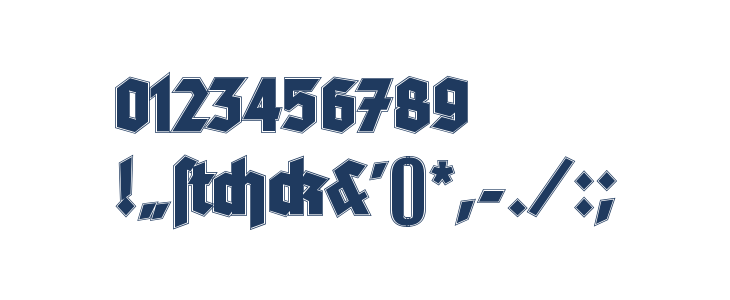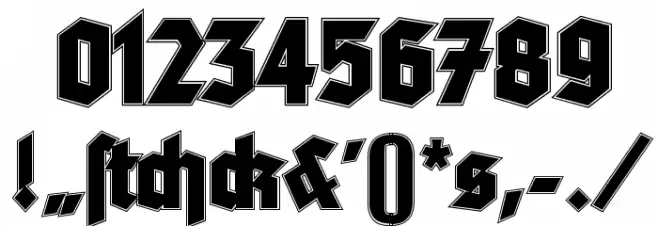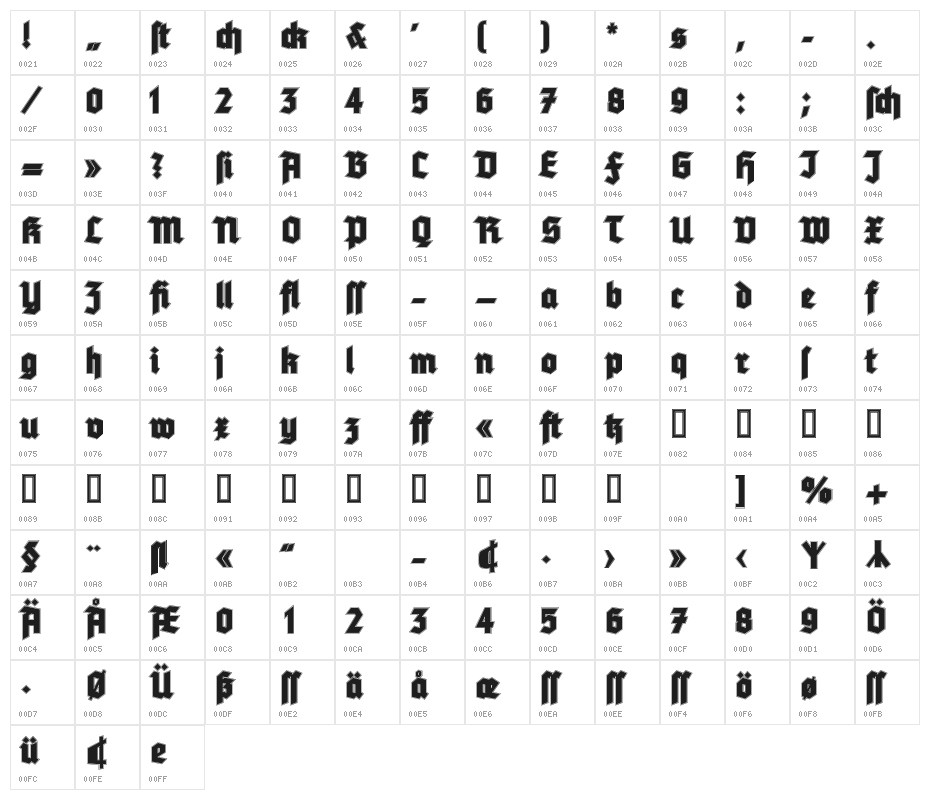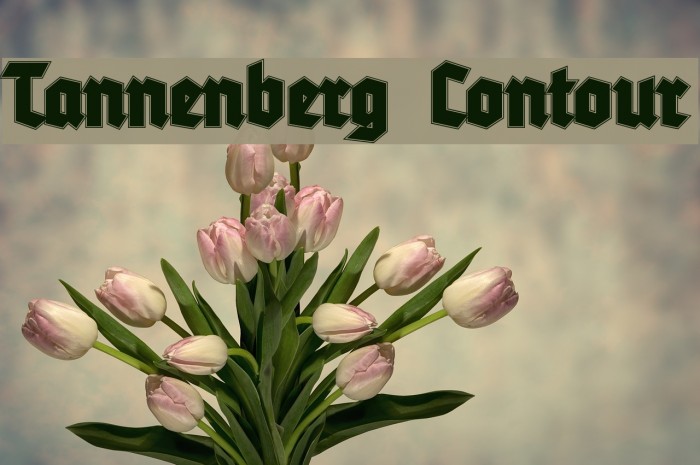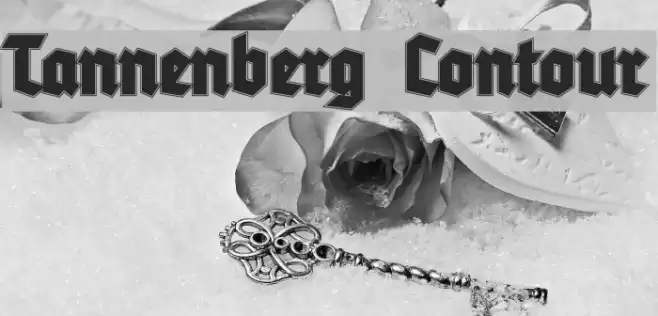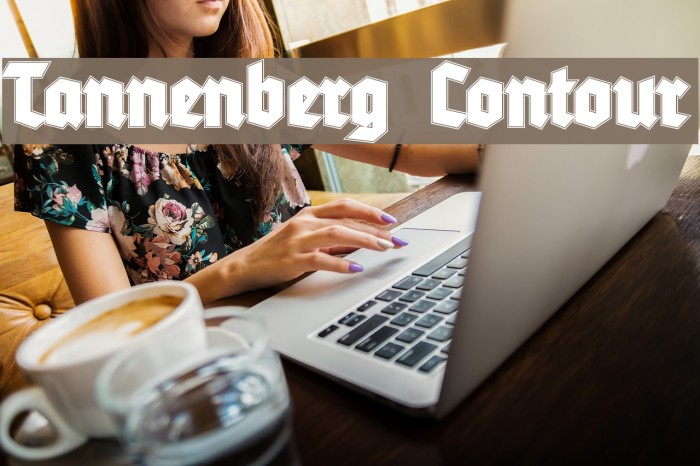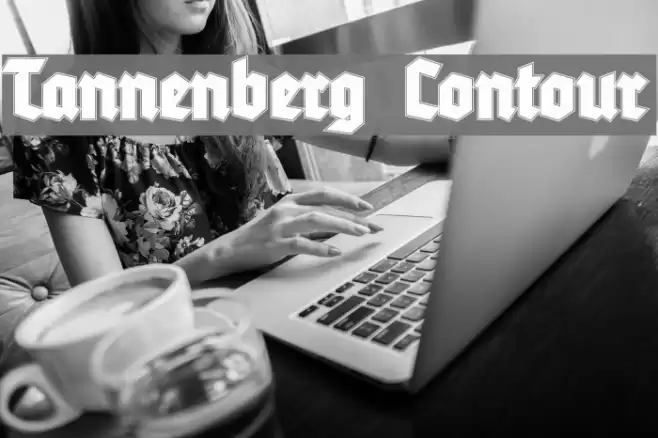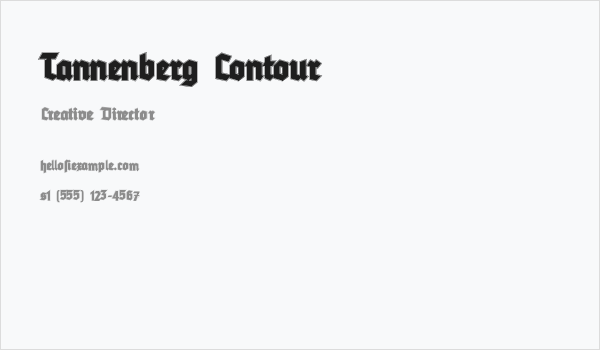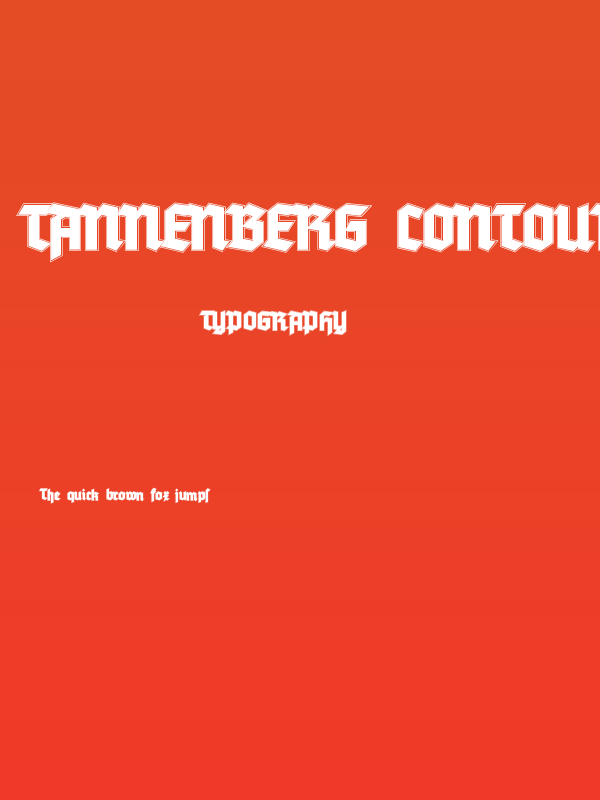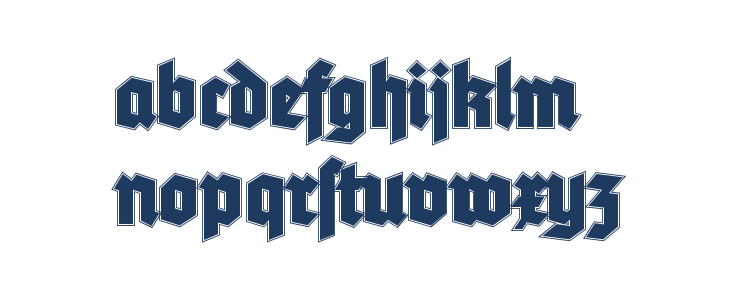
This font features a bold, angular design reminiscent of traditional Blackletter styles, yet with a modern twist. The characters are outlined, giving them a three-dimensional appearance that adds depth and visual interest. The uppercase and lowercase letters maintain a consistent style, with sharp edges and pointed serifs that evoke a sense of strength and authority. The numerals and special characters follow the same design principles, ensuring uniformity across all glyphs. This font's unique contour effect makes it stand out, suitable for projects that require a dramatic and impactful typeface.
| Use Case | Logos, Headlines, Decorative purposes |
| Proposed Projects | Ideal for branding, posters, album covers, and any design needing a dramatic, gothic touch. |